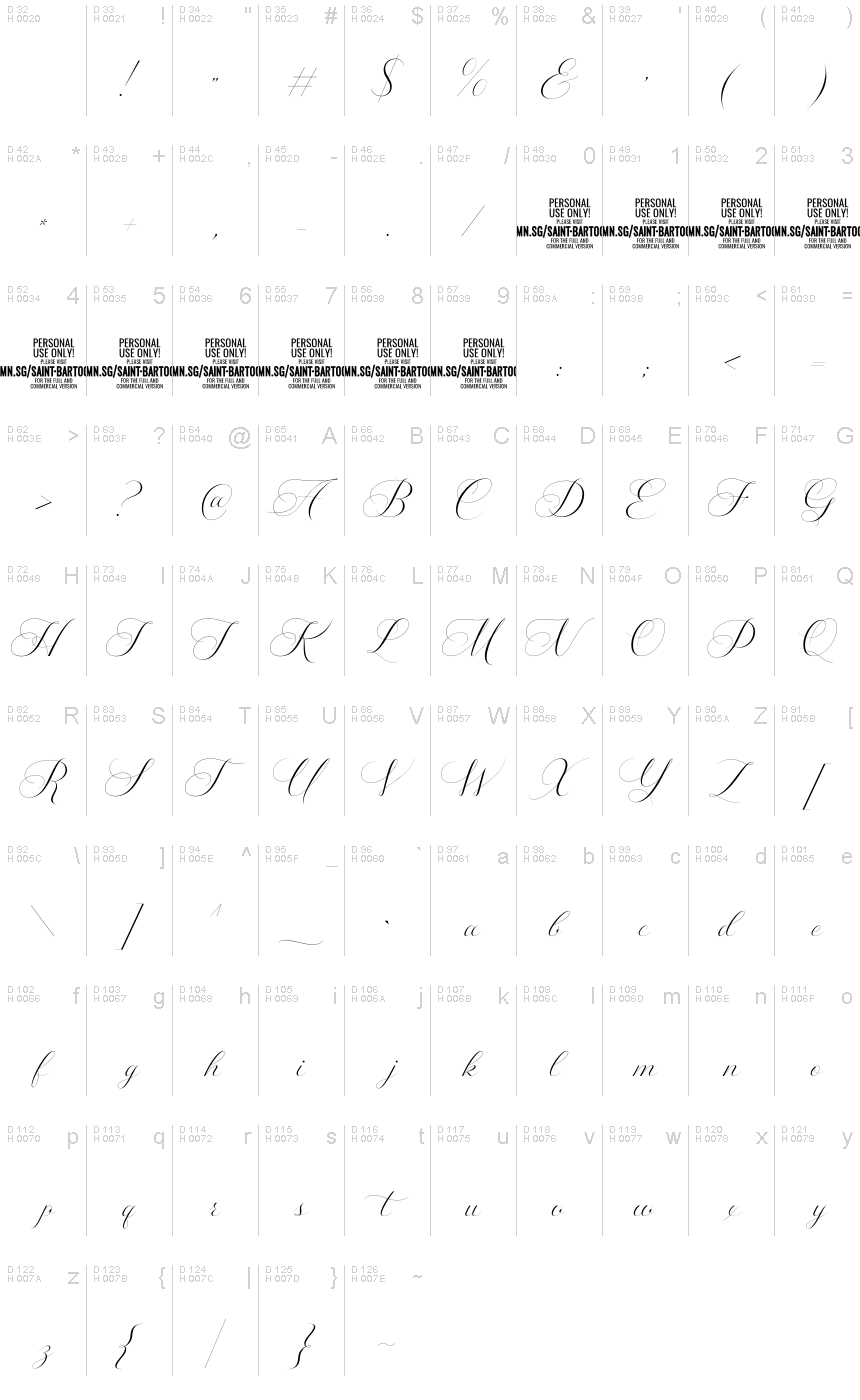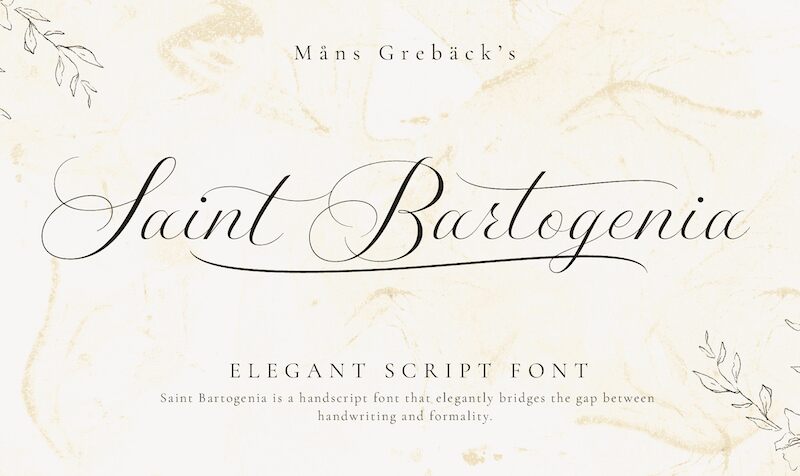
Saint Bartogenia is a captivating calligraphic font that exudes elegance and sophistication. Designed by Mans Greback, this light font showcases a delicate and graceful aesthetic, with sweeping strokes that effortlessly flow across the page. The calligraphic style lends an air of refined artistry, making it a versatile choice for a wide range of design applications.
From high-end editorial layouts to bespoke wedding invitations, the Saint Bartogenia font possesses a timeless charm that can elevate any project. Its delicate balance of delicate curves and subtle flourishes creates a visual harmony that is both visually striking and eminently readable. Whether used for headline text, decorative accents, or intricate hand-lettering, this font has the power to captivate and enchant its audience, leaving a lasting impression in every context.
Saint Bartogenia is a handscript font that elegantly bridges the gap between handwriting and formality. The thin, delicate lines of Saint Bartogenia create a sense of sophistication and grace, making each character swirl across the page like a light wind.
To create a swash, use an underscore (_) anywhere within a word. For example: Ele_gant.
To make longer underlines, use multiple underscores. For example: Wonder___world.